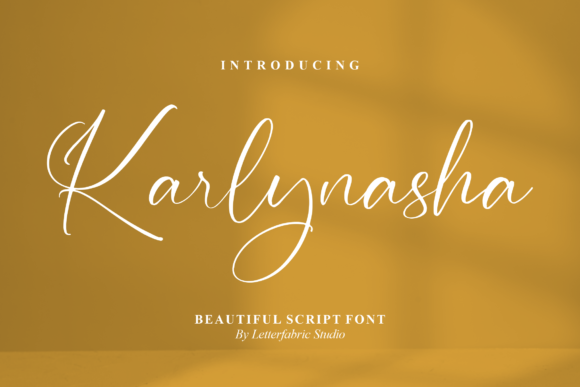
Behold, Karlynasha – the script font that dances across your designs like a whisper of elegance, leaving a trail of beauty in its wake. With its graceful curves and delicate strokes, Karlynasha is the epitome of sophistication, a font that elevates your creations to new heights of visual splendor.
Step into a world of boundless creativity, where words transform into art and messages become masterpieces. Karlynasha's enchanting characters flow seamlessly, connecting hearts and minds through the sheer magic of typography. Whether you're crafting logos that leave a lasting impression, branding projects that exude professionalism, or labels that demand attention, Karlynasha is your trusted companion, guiding you towards design excellence.
Immerse yourself in the world of Karlynasha, where photography and watermarks dance in perfect harmony, creating visual narratives that captivate and inspire. Let your imagination run wild as you design invitations for special events, infusing them with a touch of elegance that reflects the significance of the occasion. Every project you undertake with Karlynasha becomes a testament to your impeccable taste and unwavering commitment to excellence.
With Karlynasha, you are not simply creating designs; you are crafting experiences that resonate with your audience. The font's versatility knows no bounds, adapting effortlessly to a myriad of projects, from the whimsical to the formal, from the playful to the profound. Each glyph and swash is meticulously crafted, ensuring that your designs exude a sense of polish and refinement.